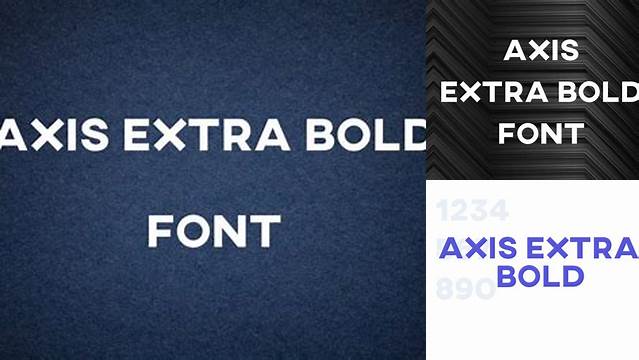
Hey guys! If you're on the hunt for a powerful and versatile font, you've landed in the right place! Today, we're diving deep into the world of the Axis Extra Bold Regular font, and the best part? You can snag it for free! This font is a fantastic choice for a wide array of design projects, bringing a bold and clean aesthetic that can really make your work pop. Whether you're working on a website, crafting a logo, or designing marketing materials, the Axis Extra Bold Regular font is a solid option to consider. It's got that extra punch that can grab attention without feeling overly complicated. Let's get into all the nitty-gritty details about this awesome font, where you can find it, and how to use it to boost your creative projects.
Axis Extra Bold Font: A Comprehensive Overview
So, what exactly makes the Axis Extra Bold Regular font so special? Well, first off, it's all about that extra bold weight. This means your text will stand out, grabbing the reader's eye and making a statement. It’s perfect for headings, titles, and any text that needs to be emphasized. The “Regular” part tells us that it's a standard, clean version of the font, easy to read and visually appealing. This combination makes it a versatile choice. The Axis Extra Bold Regular font isn’t just about looks; it’s designed with usability in mind. It's easily readable, even in larger blocks of text, ensuring your message is communicated effectively. When you choose a font, you are not just picking a typeface; you're picking a voice for your brand. The Axis Extra Bold Regular font allows you to communicate with a sense of confidence and clarity. This font is also quite adaptable, fitting well into various design styles, from minimalist to modern, it will fit the role. It can also be paired with other fonts to create more complex designs. When you get this font, think about the different ways you could use it! You could create compelling social media graphics, attention-grabbing website headers, or eye-catching print designs. Really, the possibilities are endless. The goal here is to empower you with the knowledge and resources needed to create awesome designs. The next section will focus on how to properly download and install this awesome font.
The Axis Extra Bold Regular font boasts several key features that contribute to its appeal and functionality. Its primary strength lies in its bold weight, providing a strong visual impact that ensures text stands out. The font's design is clean and straightforward, promoting readability across different sizes and platforms. This makes it an ideal choice for headings, titles, and any text element needing emphasis. The font is designed for versatility. Its adaptability is enhanced by its modern and clean design, which allows it to harmonize with various design styles. Its ability to be paired with other fonts provides designers with more possibilities. When choosing a font, consider the brand's tone and the message being conveyed. The Axis Extra Bold Regular font offers a balance of boldness and clarity, making it suitable for multiple uses. It is a great option to convey confidence and professionalism. Overall, it is a great font.
Benefits of Using Axis Extra Bold Regular Font
Choosing the right font can significantly impact your design's overall effectiveness, and the Axis Extra Bold Regular font offers a host of benefits. Its bold appearance grabs attention instantly, making it an excellent choice for headlines and calls to action. It is simple to understand and easy to read. Another great aspect of this font is versatility. It's suitable for various design projects, from website headers and social media posts to print materials and logos. You can use this font in so many different scenarios. Because of its clean lines and modern design, the Axis Extra Bold Regular font offers a professional aesthetic. A key benefit is that it enhances brand identity. By consistently using a distinctive font, you can create a memorable brand identity. This font promotes clarity, and this ensures that your message is quickly and effectively understood. This is a great font choice. This font can be great for your brand, so don't hesitate to get the font!
Maximizing the Impact: Usage and Applications
So, you've got the font, now what? Let's look at some great ways to use the Axis Extra Bold Regular font to its fullest potential. Think about how it can make a big difference in all your projects. This font is a great choice for headings, subheadings, and any text that needs to grab immediate attention. The bold weight and clean design ensure readability and visual impact. It's perfect for making key information stand out and is a great option for creating eye-catching social media graphics. Consider using it to create posts that get noticed. The Axis Extra Bold Regular font can give your brand an easy to understand and great appearance. It's also great for website headers, which can create a strong first impression on your visitors. The font will add a modern touch to any website design. Make sure the font is always aligned with your brand's identity. Always test the font in different sizes and colors to ensure it maintains its readability and impact.
Creative Design Ideas and Examples
Here are some creative design ideas to spark your inspiration when using the Axis Extra Bold Regular font. For website headers, use the font to display your brand name or a catchy tagline, creating a strong visual statement. In social media graphics, use the font for attention-grabbing headlines and announcements, ensuring your posts stand out in the crowded feed. For print materials like posters and flyers, the font works well for titles and key messaging, guaranteeing that your message is clear and impactful. Create a modern logo that utilizes the Axis Extra Bold Regular font. This font can create a distinctive brand identity. When incorporating the font into your designs, always experiment with different layouts, colors, and sizes. Consider pairing the font with a complementary font to add depth and visual interest. With a little imagination, you can unlock the full potential of this font.
Best Practices for Font Pairing
Font pairing is a crucial aspect of design, and when using the Axis Extra Bold Regular font, choosing the right companion fonts can amplify its impact. A great place to start is to pair the bold font with a more subtle font. It provides a balance that enhances readability and visual appeal. Pairing the Axis Extra Bold Regular font with a sans-serif font can create a cohesive and modern look. Always consider the contrast between your chosen fonts. Consider choosing fonts that complement the boldness of the Axis Extra Bold Regular font. You should also consider pairing the font with a serif font. The contrast will add depth and visual interest. Always test different font combinations to see what looks and reads best. When in doubt, use font pairing tools to find great combinations. Ultimately, the right font pairing will improve the overall look and user experience.
Designing for Accessibility and Inclusivity
When designing with the Axis Extra Bold Regular font, it's essential to consider accessibility and inclusivity. Make sure your designs are accessible for everyone. This includes people with visual impairments. Ensure the font size is readable. The font should also have good contrast against the background color. Consider the needs of all your users. Following these practices guarantees that the font is effective and accessible to everyone. By keeping these principles in mind, you can make sure your designs are welcoming.